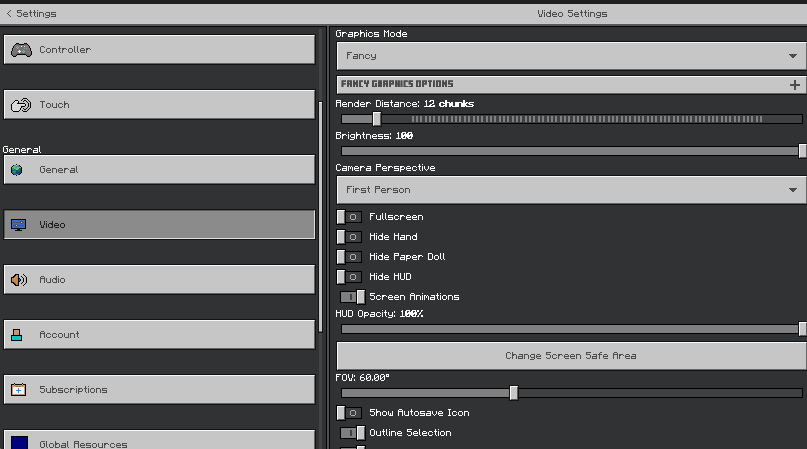
Better Fonts
Get smooth & colourful fonts in your game
⭐ Better Fonts – Smooth & Colourful Text for Minecraft Bedrock/MCPE
Better Fonts is a clean and modern font resourcepack for Minecraft Bedrock/MCPE that replaces the default pixelated text with smooth, stylish and colourful typography. It enhances your menus, chat and UI while keeping the original Minecraft feel.
🎨 Available Font Colours
Variant Description
Default Classic smooth style
Aqua Cool cyan/blue accent
Black Bold & minimal
Green Fresh green tone
Red Eye-catching theme
✅ Features
• Smooth & modern font style
• Multiple colour variants
• Better readability in chat & menus